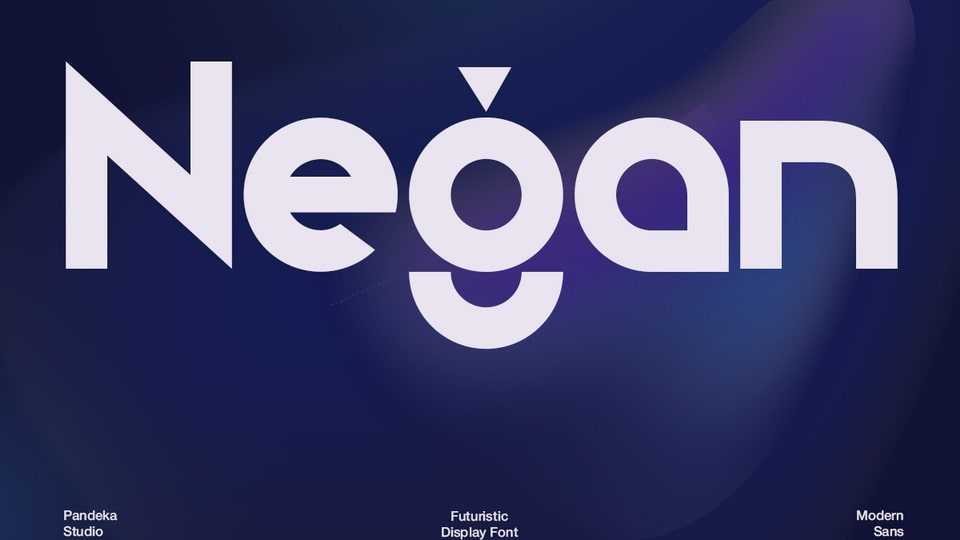
Download Negan font, a futuristic sans serif logo typeface crafted to bring a bold and modern aesthetic into your projects with its clean geometry, sharp edges, and unique character shapes.